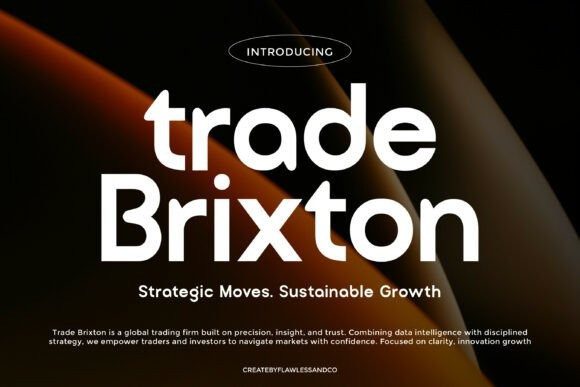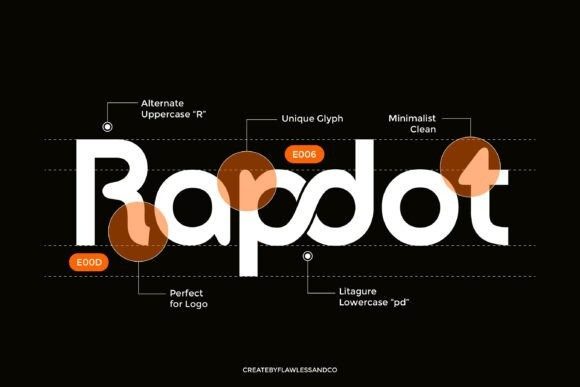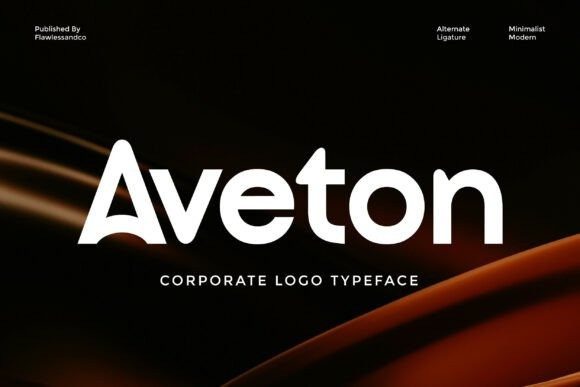
Aveton Font
Aveton Font is a modern sans serif typeface crafted for professional brand identities and sleek corporate logo design. Its clean structure, smooth curves, and minimalistic form create a bold yet sophisticated visual impact. Designed with precision and balance, Aveton brings a sense of confidence and clarity to any branding project — perfect for brands that value professionalism, innovation, and timeless appeal.